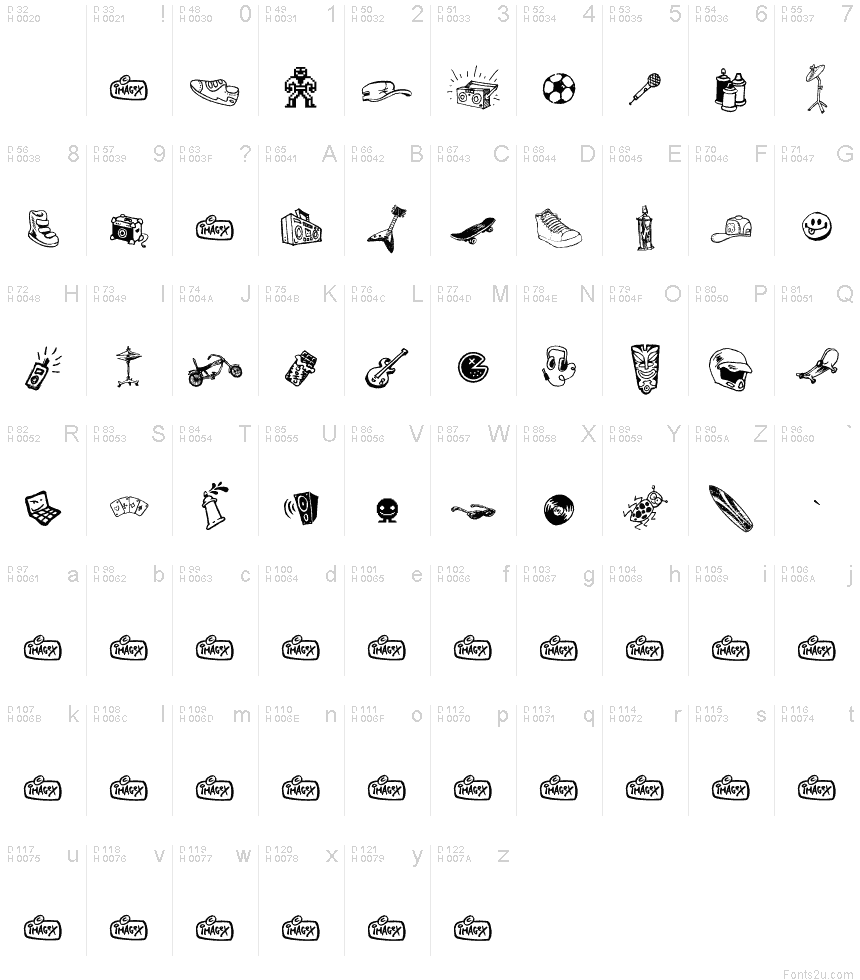
In My Room is a free cartoon dingbat font filled with chunky, hand-inked pictures of music gear, computers, faces, and spray cans. Loose outlines and uneven fills keep the symbols lively.
Music and street-art themes make the collection useful for concert posters, record packaging, and youth-event graphics. Each icon can act as a small illustration rather than a neutral text mark. Its playful mix of gadgets, sound equipment, and grinning characters is suited to teenage and alternative music audiences.